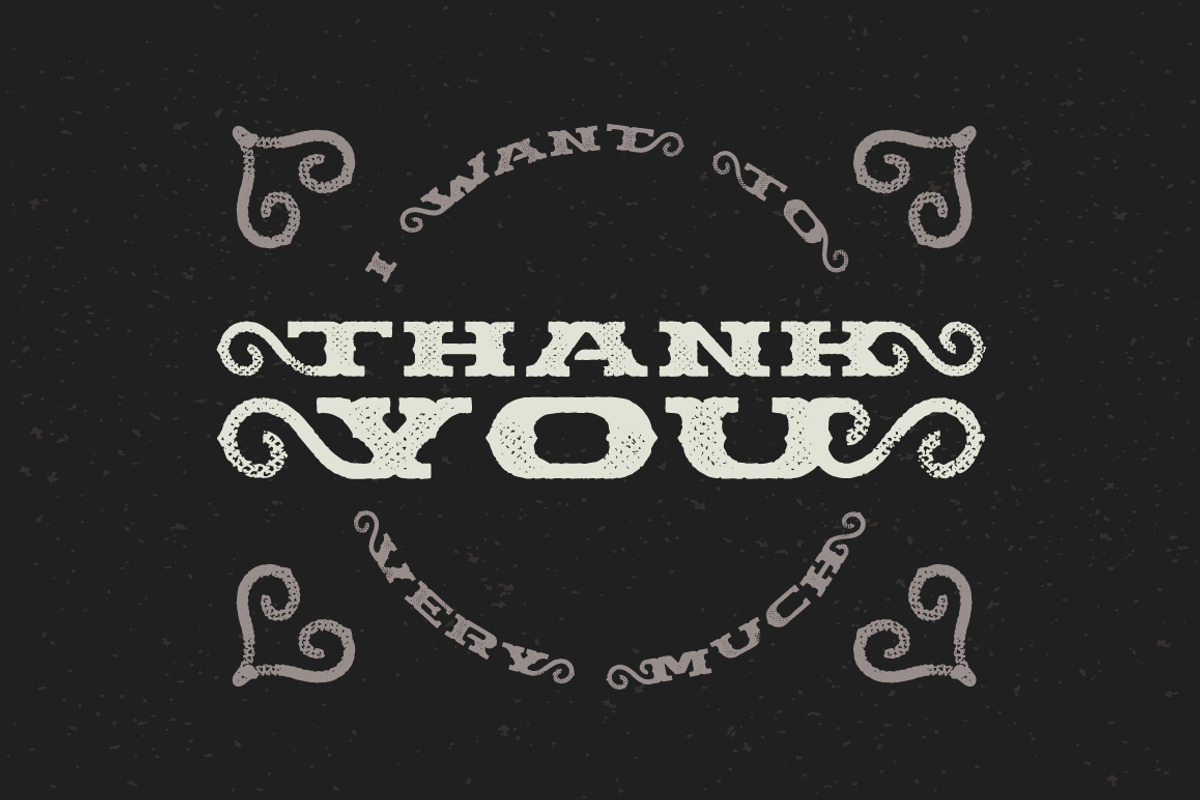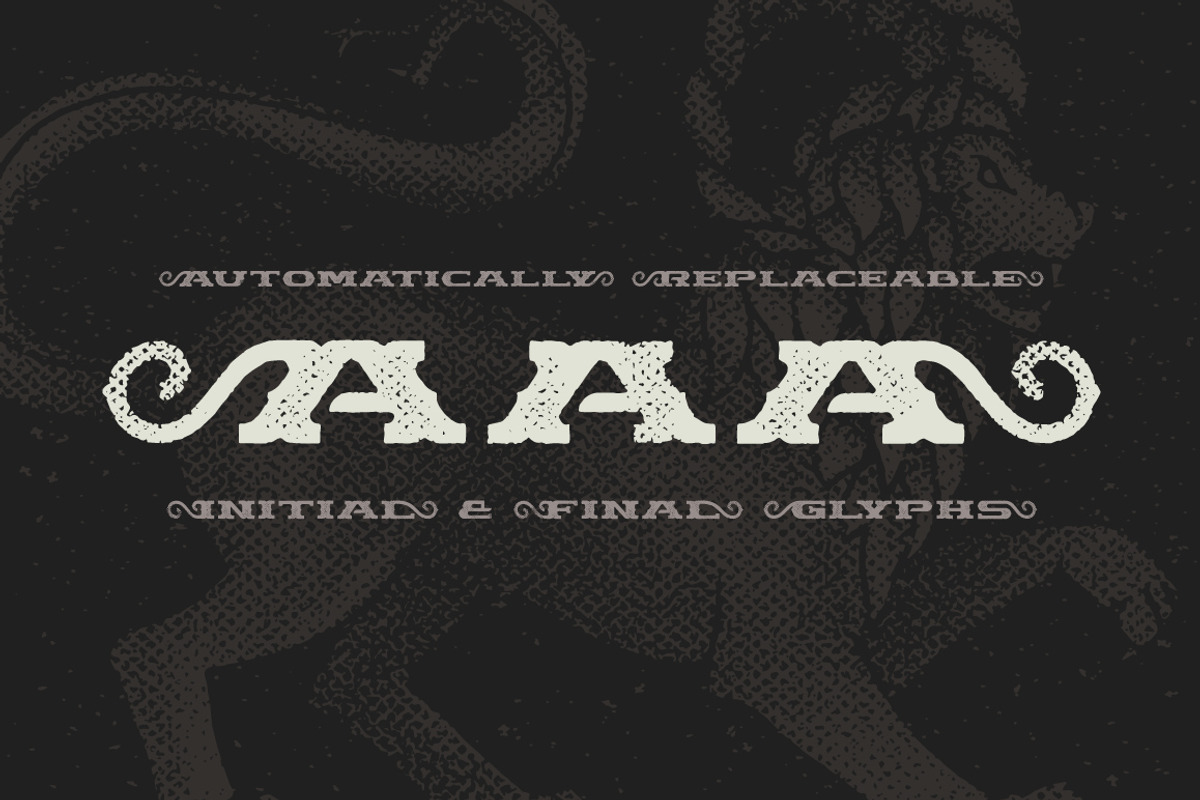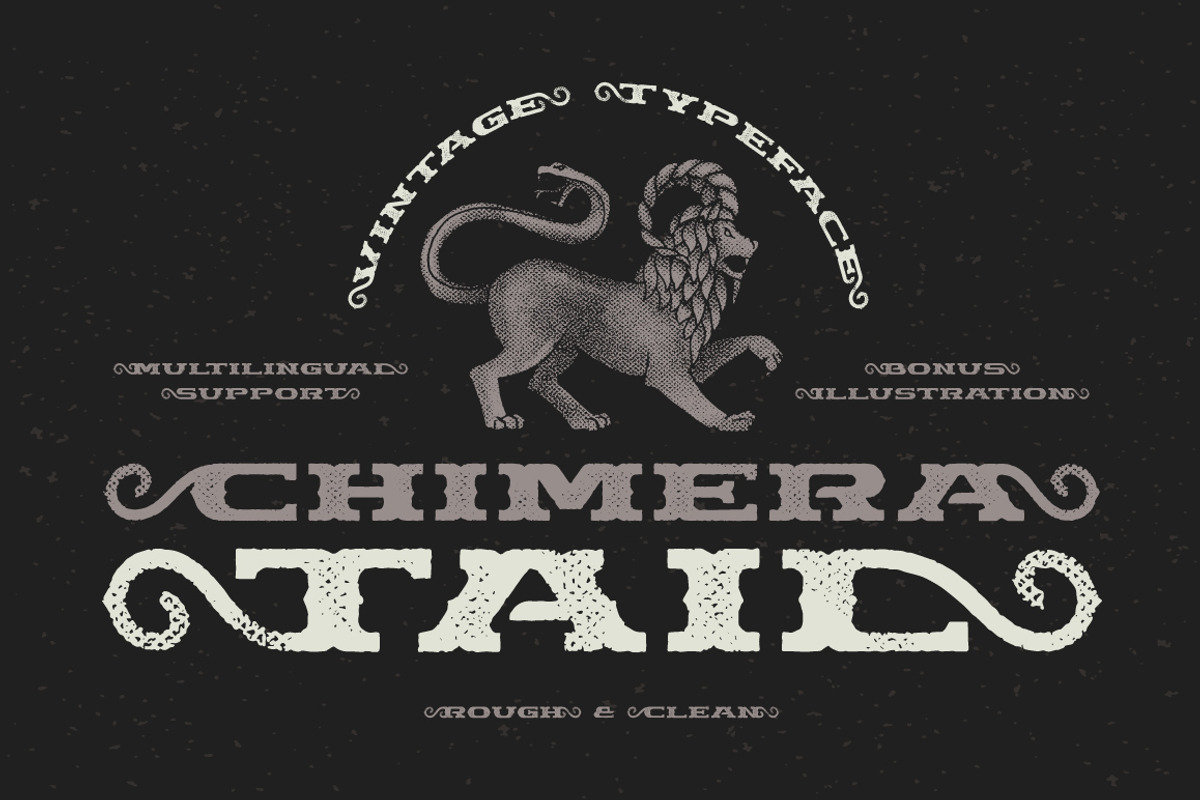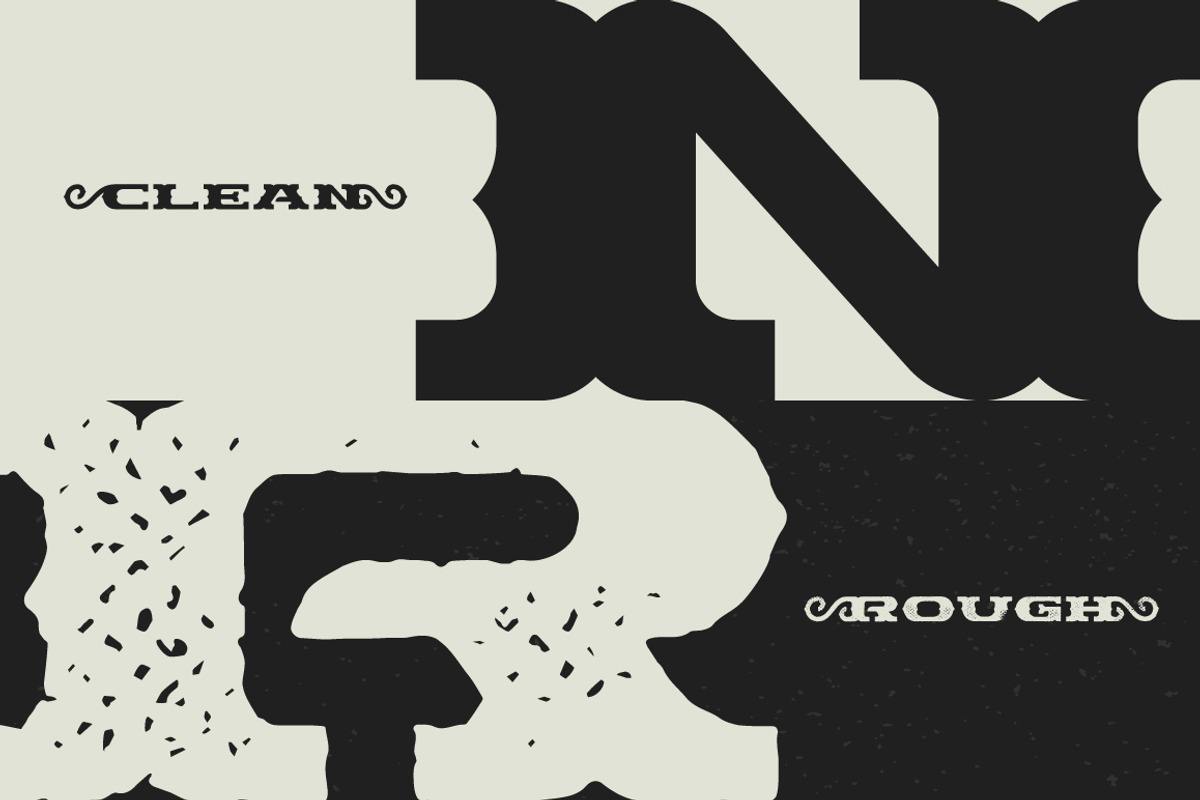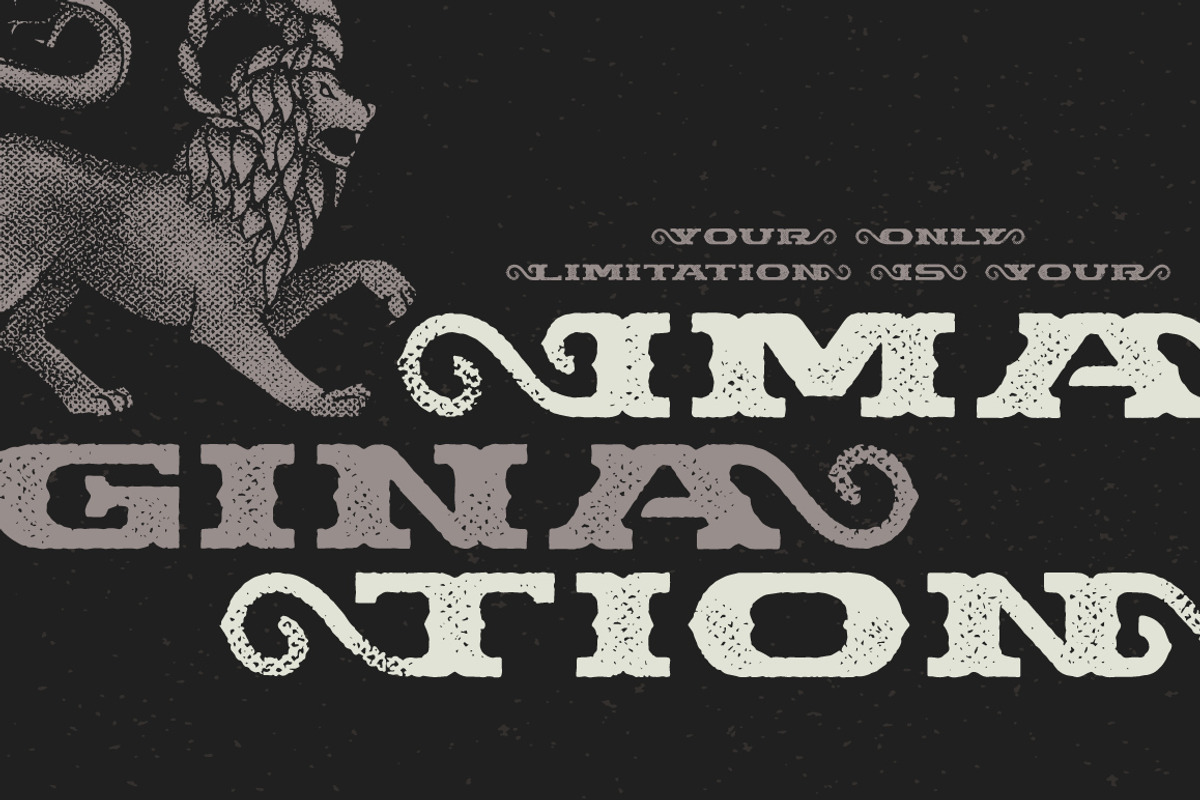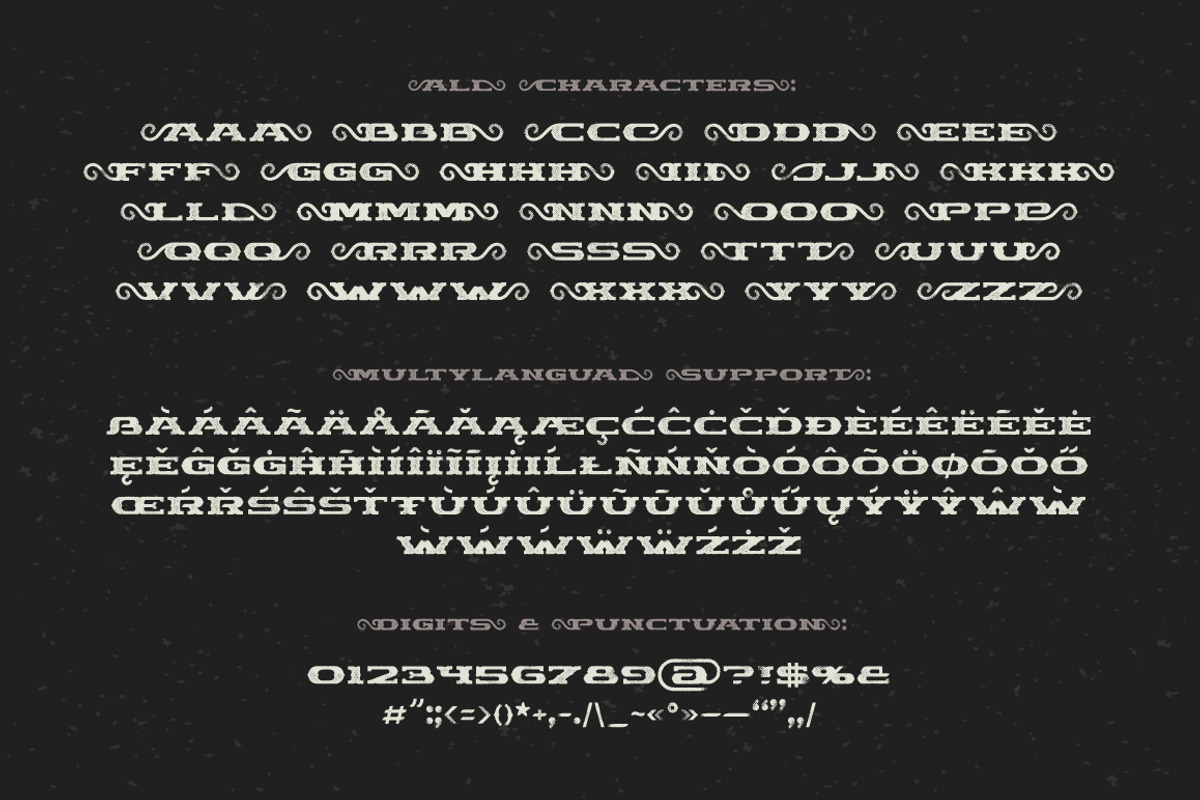
Chimera Tail, font + illustration
Chimera Tail, font + illustration by Gleb Guralnyk is a font selected for branding, posters, packaging, typography.
- Also a clean version without texture is included.
- It's a wide textured typeface with automatically replaceable initial and final extended characters.
Why Chimera Tail, font + illustration is worth a look
Chimera Tail, font + illustration by Gleb Guralnyk fits naturally into Branding, posters, packaging, typography.